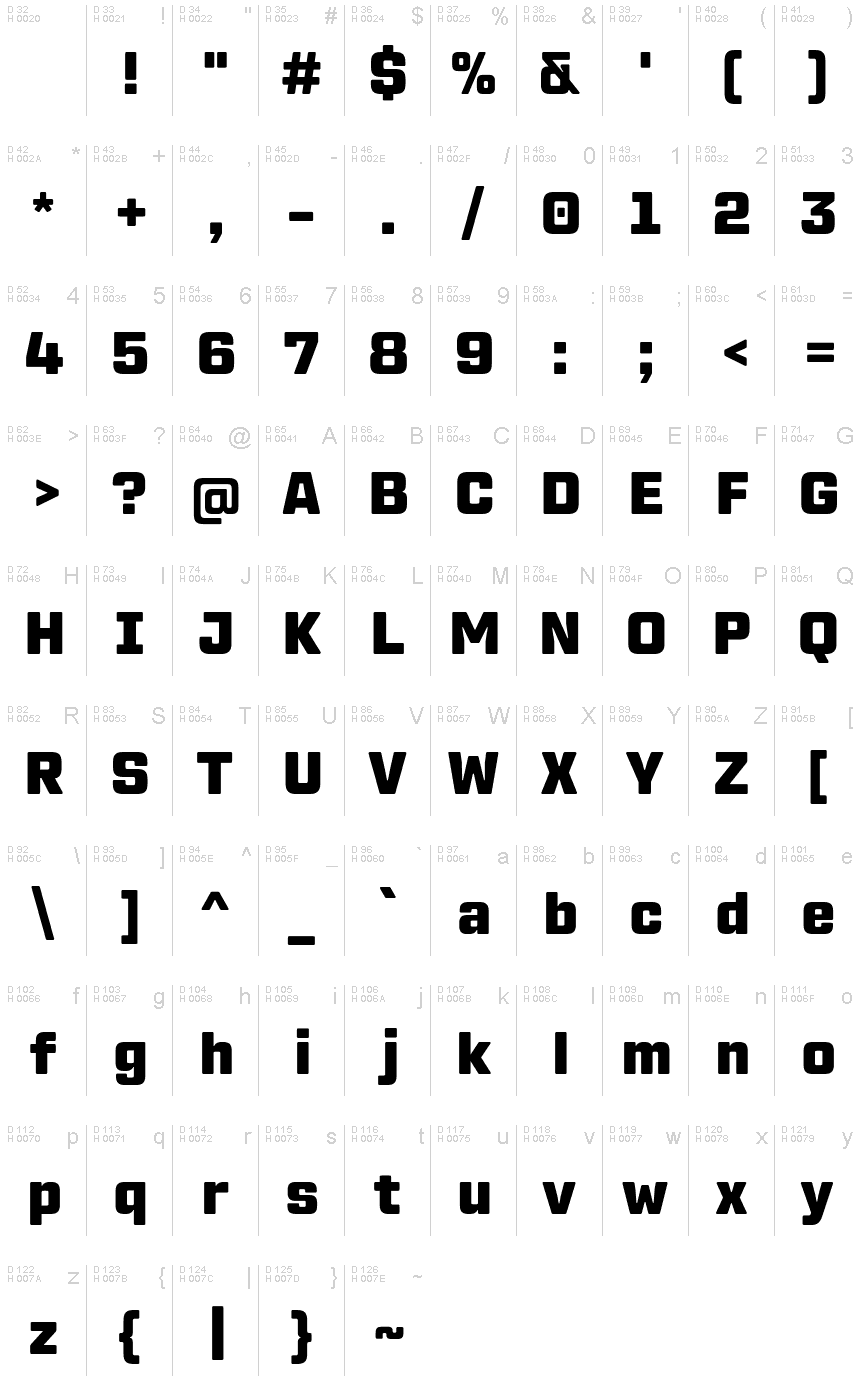
TT Lakes Neue Trl Cnd Blc
TT Lakes Neue Cnd Blc is a bold and modern sans serif font that demands attention. Created by TypeType Foundry, this extra-bold typeface is perfect for projects that require a strong and confident voice, such as branding materials, advertisements or editorial design. The semi-expanded width adds balance to the font's striking weight, making it easy to read while still retaining its impactful presence. With its clean lines and contemporary feel, TT Lakes Neue Cnd Blc is an excellent choice for anyone looking to make a bold statement with their typography.